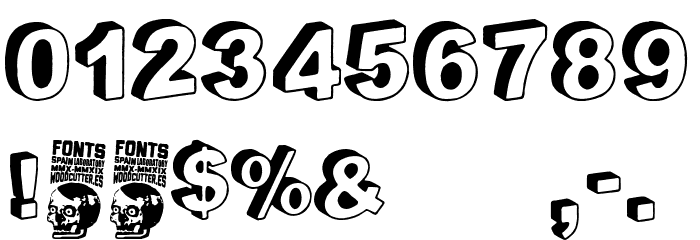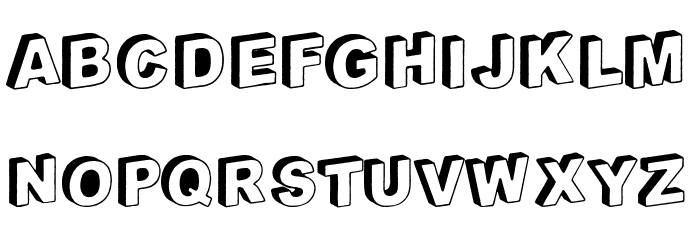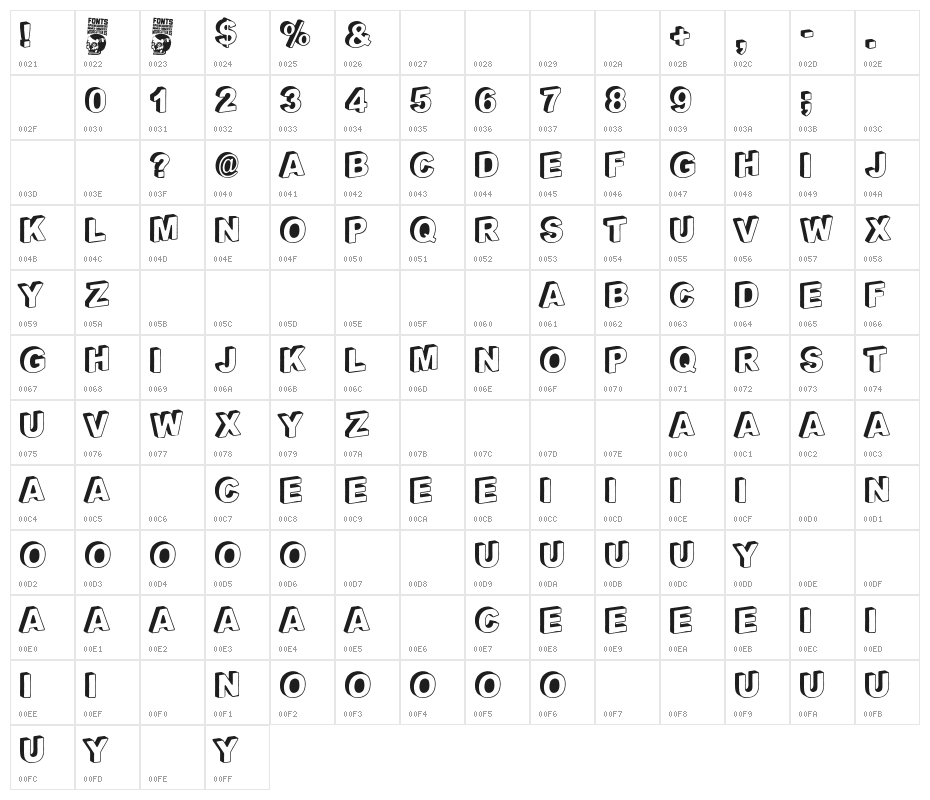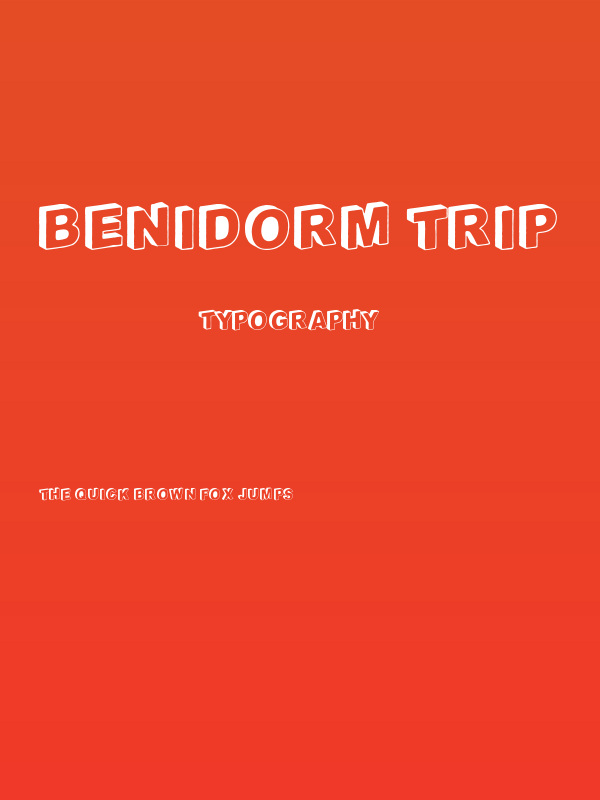
Benidorm Trip Font
Benidorm Trip Description
A bold, playful sans-serif font with a thick 3D shadow effect, rounded corners, and uniform stroke width, giving it a cartoonish and eye-catching appearance. The characters are uppercase only, with consistent proportions and a fun, informal vibe.
| Overall Style | Decorative, Playful, Cartoonish |
| Use Case | Headlines, Posters, Logos, Event Flyers |
| Proposed Projects | Children's books, posters, event flyers, comic titles, party invitations, branding for playful products. |